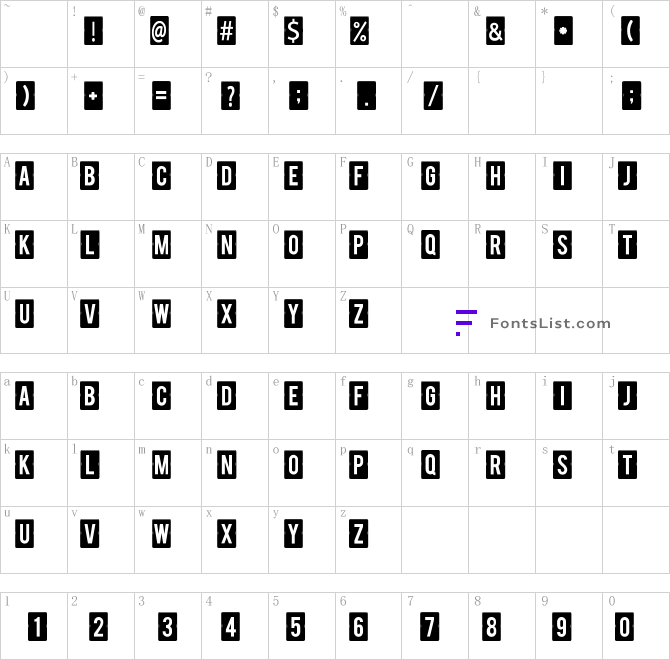
- Font Name:calendar note tfb
calendar-note-tfb.ttf is a very beautiful artistic font, calendar-note-tfb.ttf is widely used in the design and printing of various books and pictures,calendar-note-tfb.ttf has a strong visual impact,calendar-note-tfb.ttf is a commonly used font in newspapers, magazines and books, and is used in posters, e-commerce Poster design, store design, logo design, font design and other fields.calendar-note-tfb.